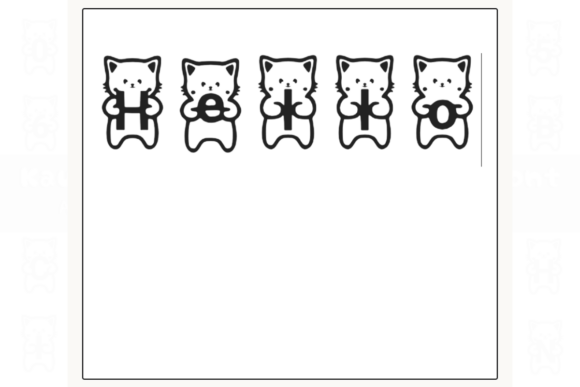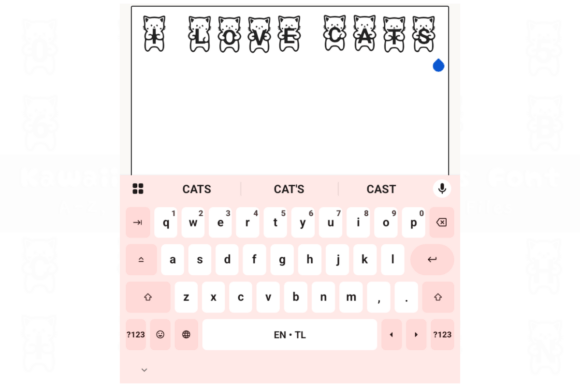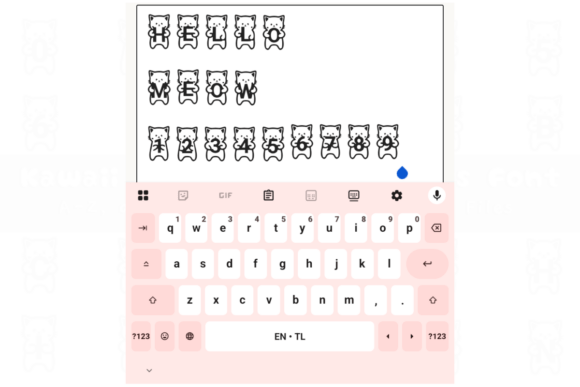
Introduction to Kawaii Cats Holding Letters Font
Add playful charm to your creative projects with the Kawaii Cats Holding Letters Font.
This unique black-and-white line art font features adorable hand-drawn cats standing and holding each letter (A-Z, a-z) and number (0-9) Perfect for planners, stickers, scrapbooking, nursery prints, invitations, sublimation designs, and more, this font brings a fun and whimsical touch to any project.